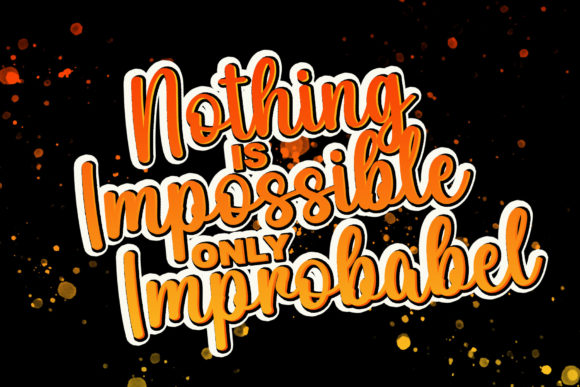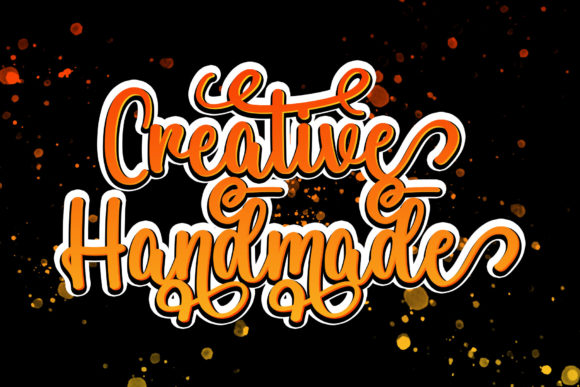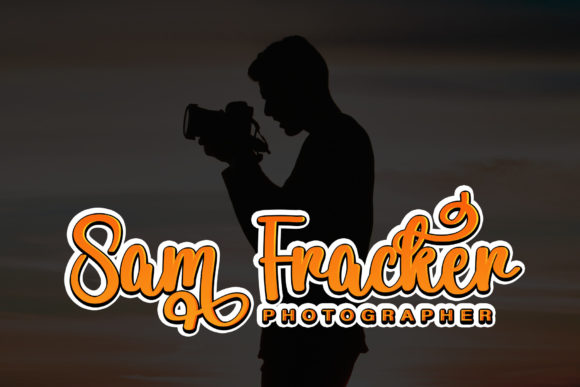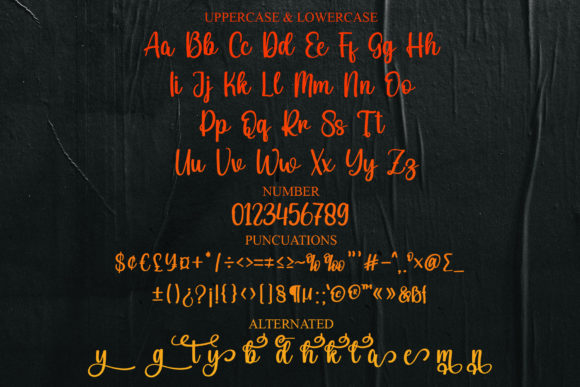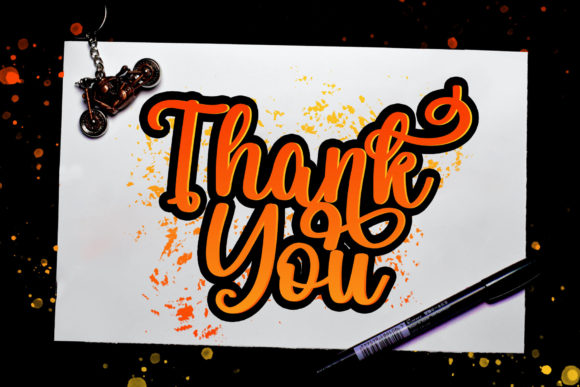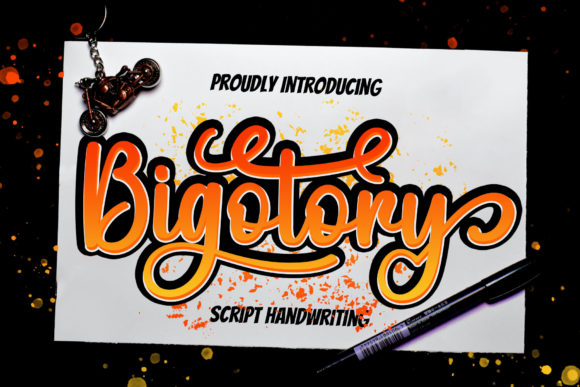
The Elegance of Bigotory Font: A Designer’s Delight
I still remember the project that led me to discover the Bigotory font. I was working on a branding campaign for a luxury boutique hotel, and I needed a font that would convey elegance, sophistication, and a touch of whimsy. After hours of scouring font libraries and testing various options, I stumbled upon Bigotory. Its delicate, flowing script immediately caught my eye, and I knew I had found the perfect fit. In this article, I’ll share my experience with Bigotory, its features, and how to make the most of it in your designs.
An Honest Review of Bigotory Font
- ✨ Delicate and elegant handwritten style
- ✅ Well-balanced characters for optimal readability
- 💫 Supports a wide range of designs, from luxury branding to wedding stationery
- 🎨 Highly versatile and adaptable to different color schemes and textures
While Bigotory is an exceptional font, there are a few things to keep in mind:
- 🤔 Limited availability of condensed or bold weights, which may limit its use in certain applications
The Designer Inspiration Behind Bigotory
Bigotory was designed with the intention of creating a beautiful, flowing script that would evoke a sense of elegance and refinement. The designer aimed to craft a font that would be both versatile and sophisticated, suitable for a wide range of applications. While the designer’s true identity remains a mystery, their passion for typography and design is evident in every detail of Bigotory.
Q: What type of projects is Bigotory best suited for?
A: Bigotory is an excellent choice for luxury branding, wedding stationery, packaging, and editorial design. Its elegant and refined style makes it perfect for high-end applications.
Q: Does Bigotory support OpenType features?
A: Yes, Bigotory supports OpenType features, including ligatures and stylistic alternates. This allows for greater flexibility and creativity in your designs.